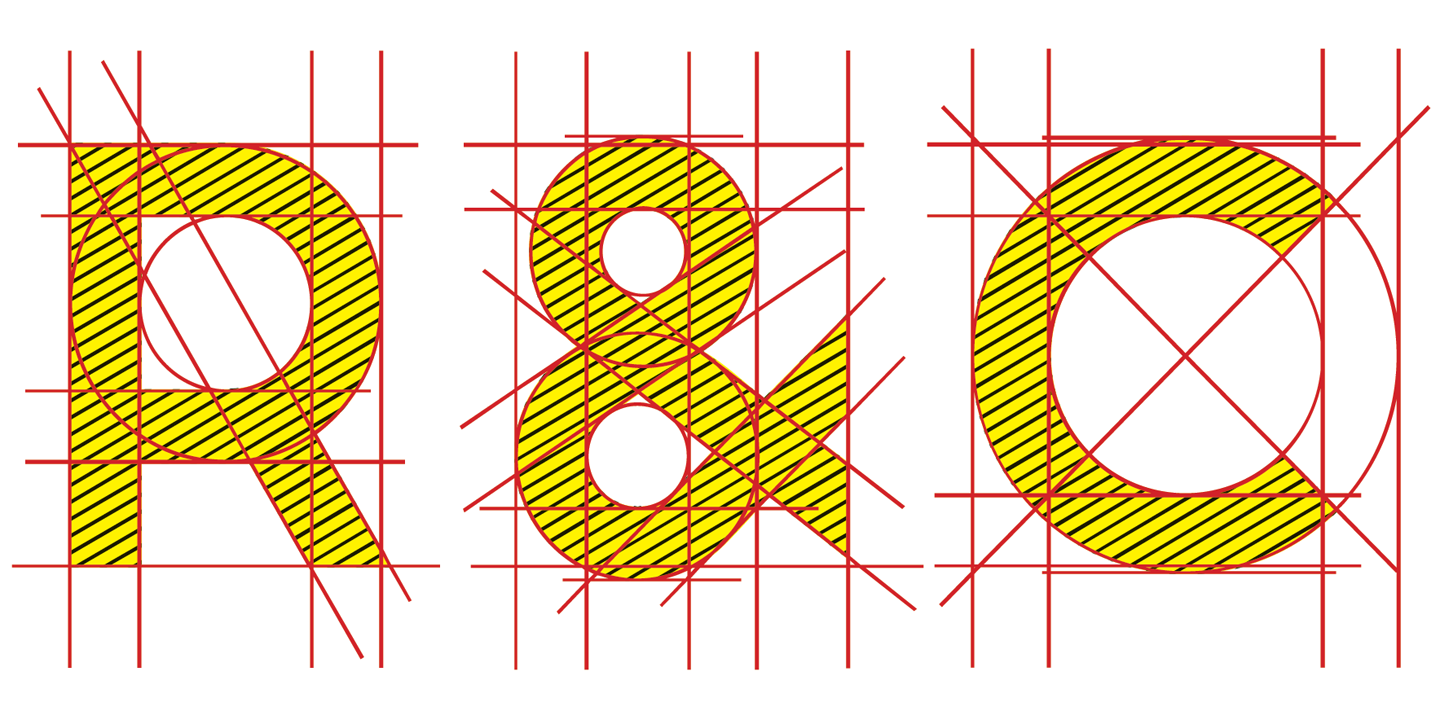
R&C Font is perfect for corporate law firms, professional consulting agencies, executive business presentations, formal partnership documents, distinguished accounting firms, premium financial services, established business partnerships, and authoritative institutional communications.
This font is exciting because it embodies the sophisticated partnership of reliability and credibility with clean, authoritative letterforms that convey trust, professionalism, and the kind of institutional gravitas that inspires client confidence. The R&C Font captures the essence of successful business relationships and professional excellence, transforming ordinary text into distinguished communications that command respect in competitive business environments.
The R&C Font family includes professional variations such as Regular, Bold, Light, Medium, Italic, Corporate, Condensed, and Extended versions, providing business professionals with comprehensive tools to create authoritative typography that reflects partnership excellence and institutional credibility across all corporate applications and professional communications.
Build professional credibility with R&C Font Free Download that brings institutional authority to every business design project. This professionally crafted typeface combines corporate sophistication with contemporary functionality, making it perfect for law firms, consulting companies, and professional service organizations requiring absolute trustworthiness and executive appeal. The font's authoritative character design ensures your message conveys expertise and reliability while maintaining excellent readability across all business applications. Whether you're developing professional service branding, creating corporate presentations, or designing materials that need to inspire client confidence, R&C Font delivers the authoritative typography that resonates with business clients seeking established expertise and proven reliability. Its versatile design works seamlessly across digital and print media while preserving the professional authority that makes corporate communications feel genuinely trustworthy and worthy of the confidence that serious business relationships require in competitive markets where reputation and credibility are absolutely essential for success.